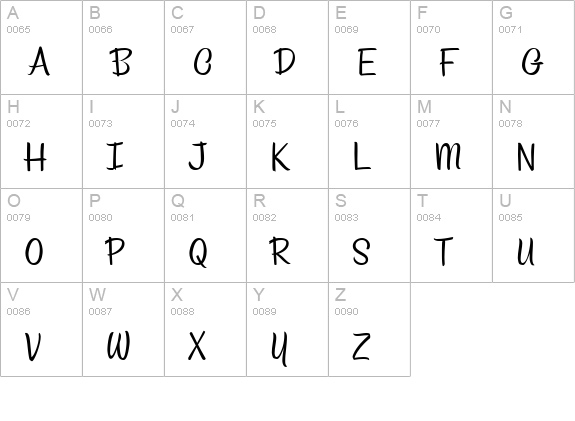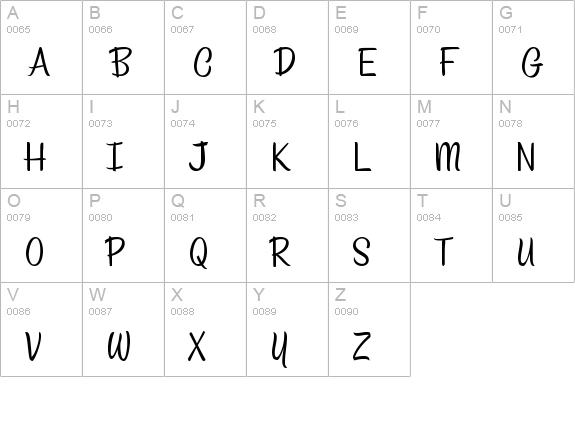
Chicken Basket Font Details
Introducing Chicken Basket font, a quirky and playful typeface that is sure to add a touch of whimsy to your designs. With its charming handwritten style and unique flair, Chicken Basket is perfect for projects that call for a fun and lighthearted vibe. This versatile font is ideal for a variety of design applications, from branding and packaging to social media graphics and more. And the best part? Chicken Basket font is available for free download at FontsMarket.com. That's right, you can add this delightful font to your collection at no cost, making it an affordable and accessible option for all your creative projects. Don't miss out on the opportunity to bring a touch of personality to your designs with Chicken Basket font - download it today!